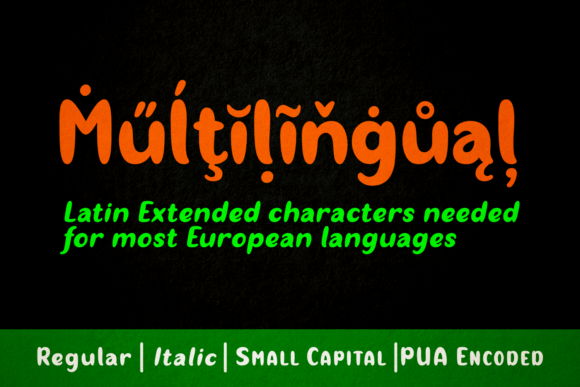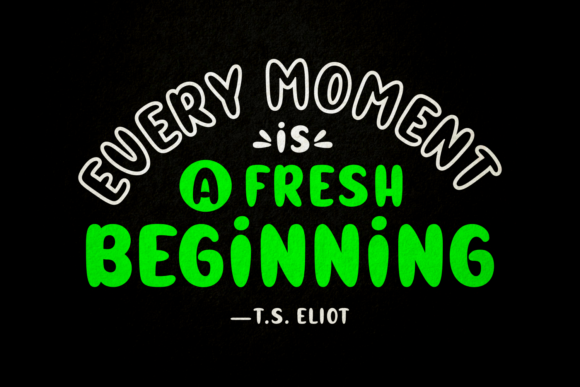
Discover the Charm of Acika Font: A Sweet and Quirky Display Font
Are you tired of using the same old fonts for your creative projects? Look no further than Acika Font, a sweet and quirky display font that’s sure to make your designs stand out. With its chunky and round characters, Acika Font is both authentic and incredibly versatile, making it perfect for a wide range of creative ideas.
What Makes Acika Font So Special?
Acika Font is a unique and eye-catching font that’s designed to add a touch of personality to your designs. Its chunky and round characters give it a playful and whimsical feel, making it perfect for projects that require a bit of fun and flair. Whether you’re working on a logo, a poster, or a social media graphic, Acika Font is sure to make your design pop.
Authentic and Versatile
One of the things that sets Acika Font apart is its authenticity and versatility. This font is perfect for a wide range of creative projects, from branding and advertising to packaging and web design. Its unique character design makes it suitable for use in both digital and print formats, giving you the flexibility to use it across different mediums.
Acika Font is a dream come true for designers and crafters who are looking for a font that can help them add a personal touch to their work. Whether you’re a professional designer or a DIY crafter, this font is easy to use and can be incorporated into your workflow in no time. With Acika Font, you can create unique and eye-catching designs that showcase your personality and style.
Use Acika Font in Your Creative Projects
So, how can you use Acika Font in your creative projects? Here are a few ideas to get you started:
- Logos and Branding: Use Acika Font to create a unique and memorable logo for your business or brand. Its chunky and round characters make it perfect for creating a playful and eye-catching logo that stands out.
- Posters and Flyers: Add a touch of personality to your posters and flyers with Acika Font. Its quirky design makes it perfect for creating eye-catching headlines and titles that grab attention.
- Social Media Graphics: Use Acika Font to create social media graphics that stand out from the crowd. Its unique character design makes it perfect for creating engaging and shareable graphics that get noticed.
- Packaging Design: Add a personal touch to your packaging design with Acika Font. Its playful and whimsical feel makes it perfect for creating eye-catching labels and packaging that stands out on store shelves.
Tips for Using Acika Font
Here are a few tips for using Acika Font in your creative projects:
- Experiment with Different Sizes: Acika Font looks great in a variety of sizes, from small and delicate to large and bold. Experiment with different sizes to find the one that works best for your project.
- Pair it with Other Fonts: Acika Font pairs well with a variety of other fonts, from sans-serif fonts to script fonts. Experiment with different font combinations to find the one that works best for your project.
- Use it in Combination with Images: Acika Font looks great in combination with images and illustrations. Use it to add a touch of personality to your graphics and make them stand out.
Acika Font is a sweet and quirky display font that’s perfect for designers and crafters who are looking for a unique and eye-catching font to add to their creative projects. Its chunky and round characters make it both authentic and incredibly versatile, making it suitable for use in a wide range of creative projects. Whether you’re working on a logo, a poster, or a social media graphic, Acika Font is sure to make your design stand out. So why not give it a try and see the difference it can make in your creative work?